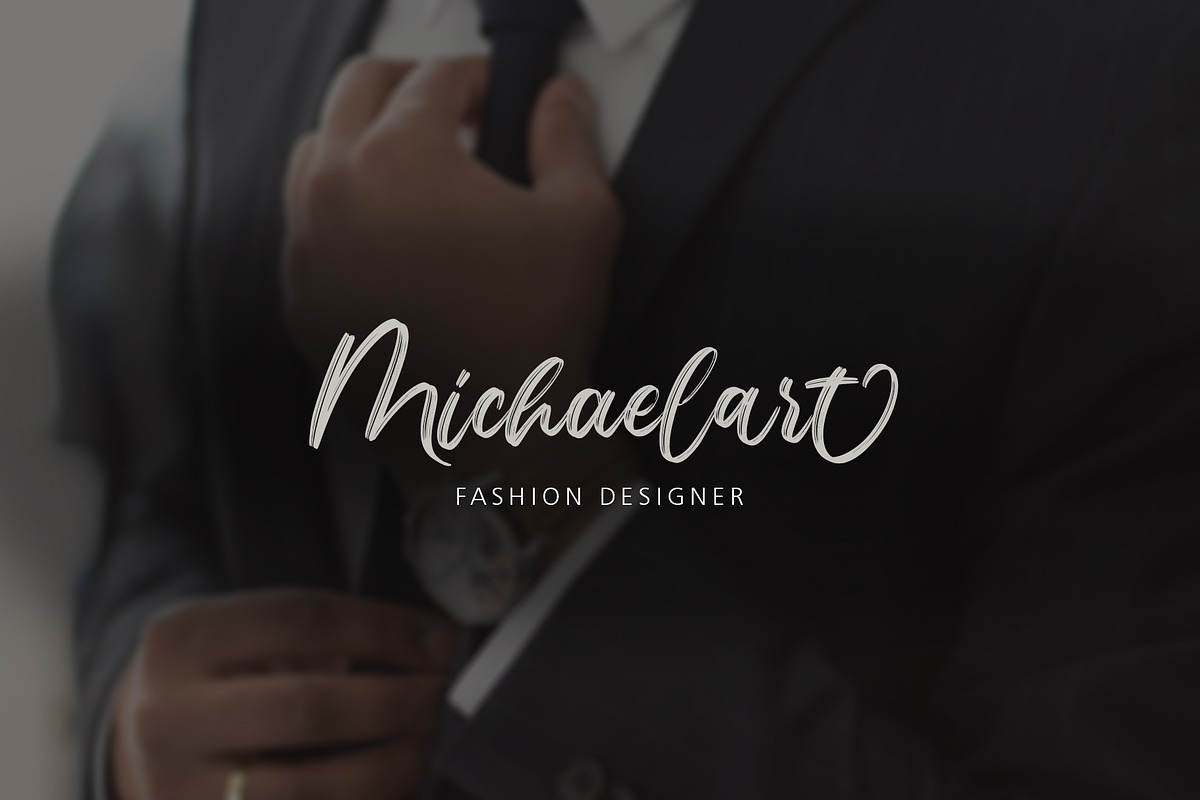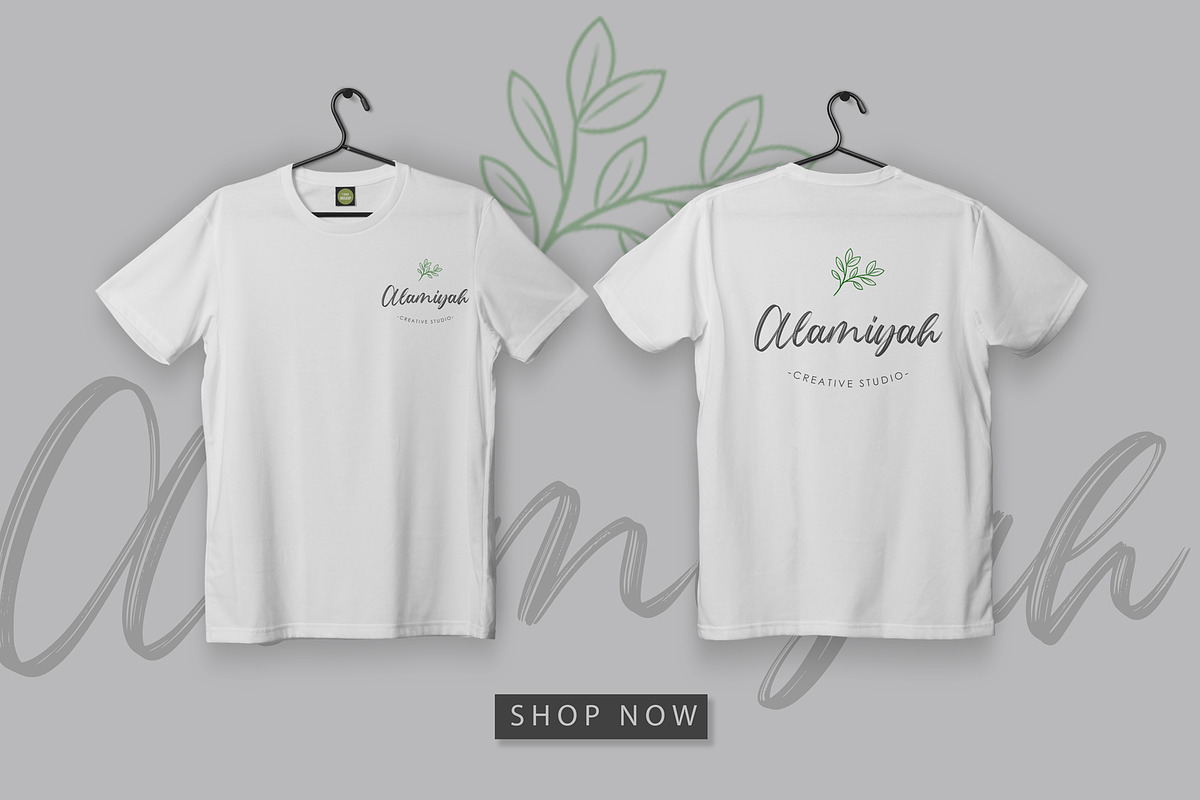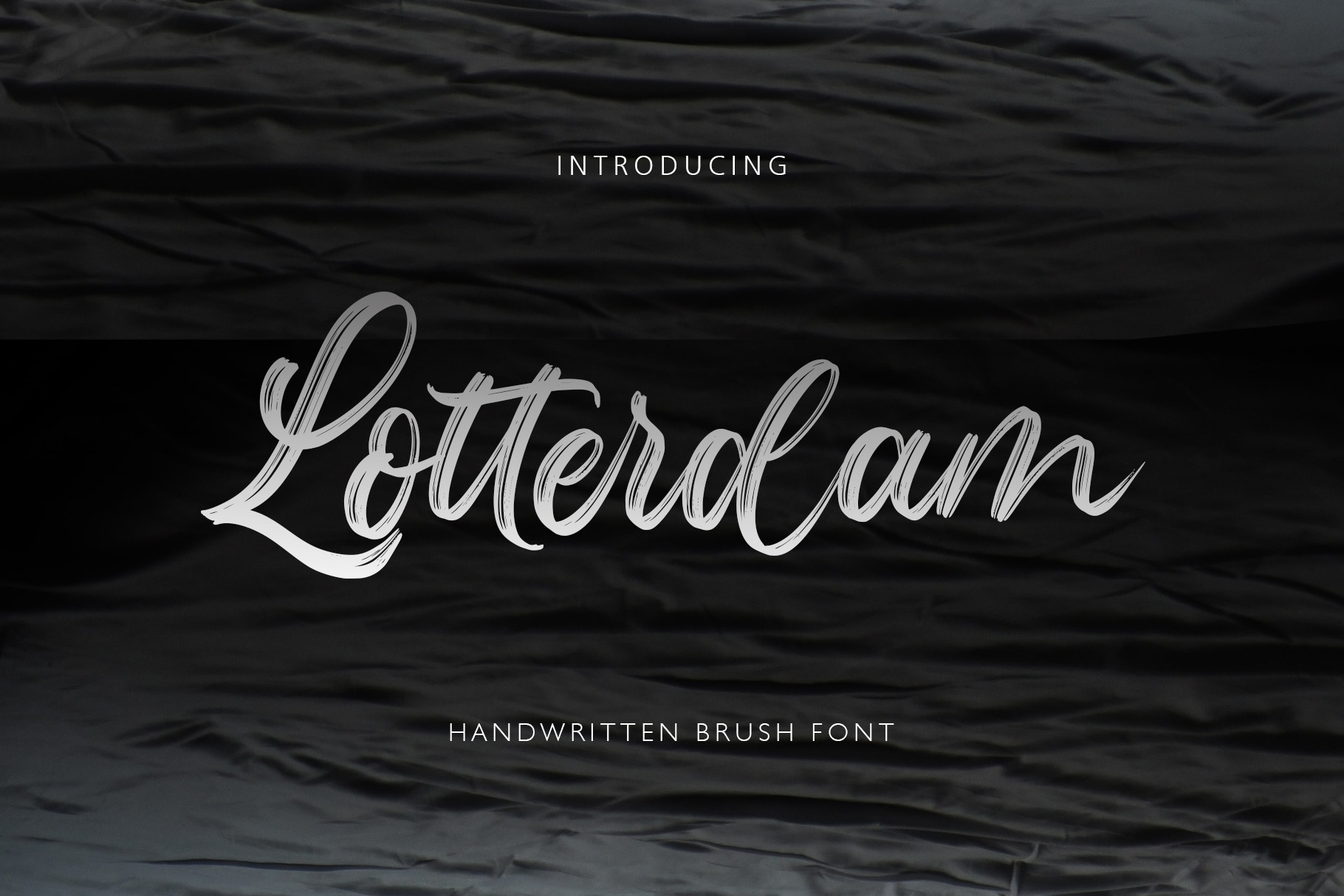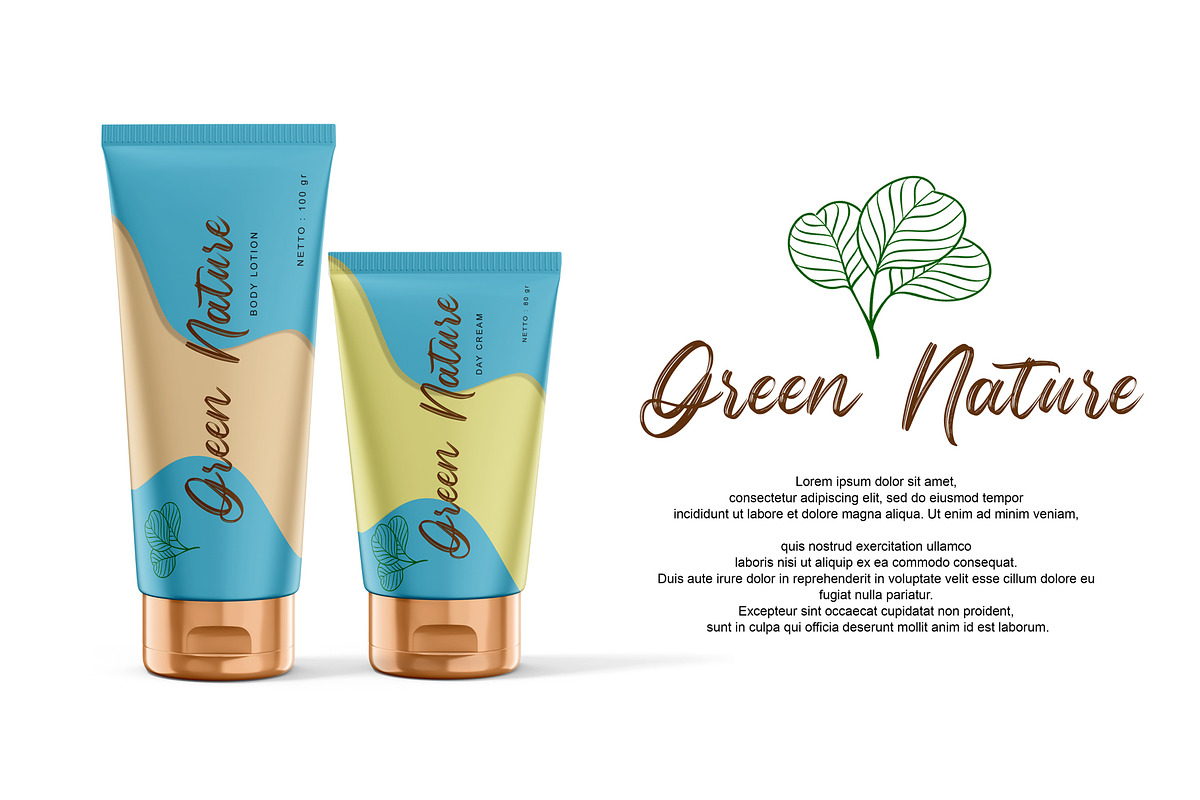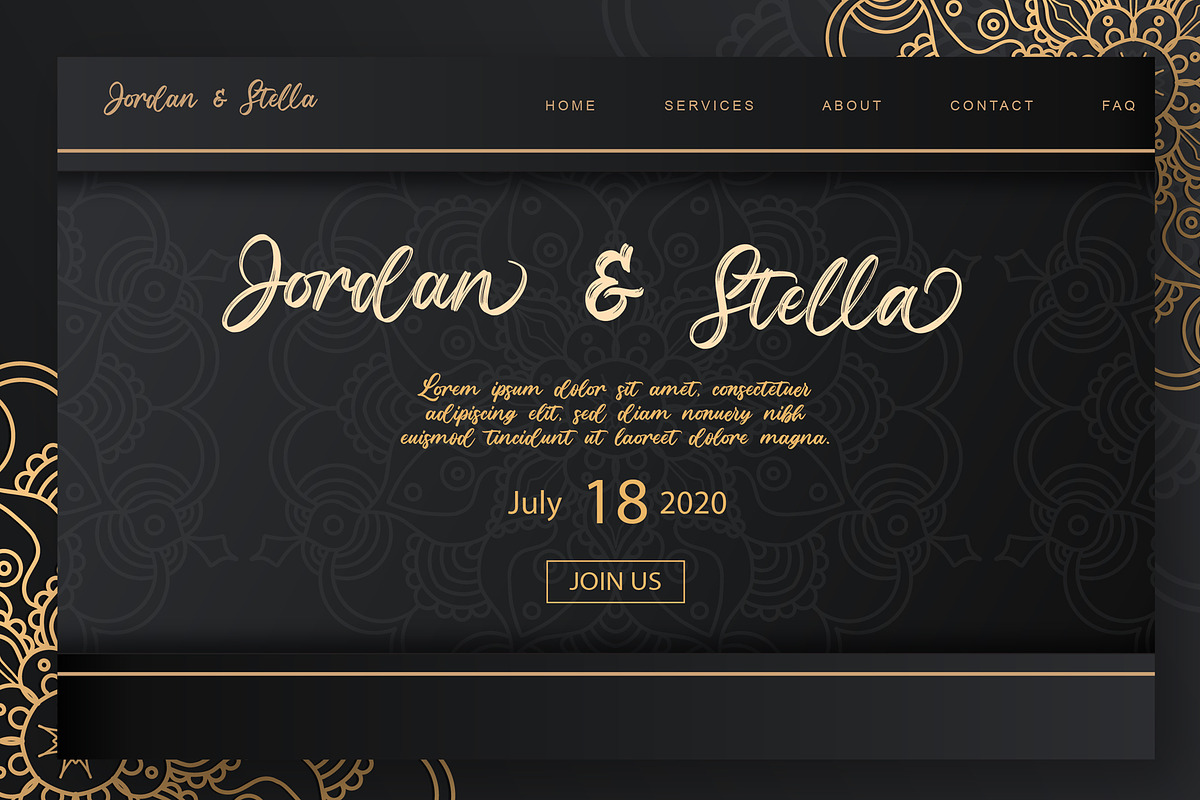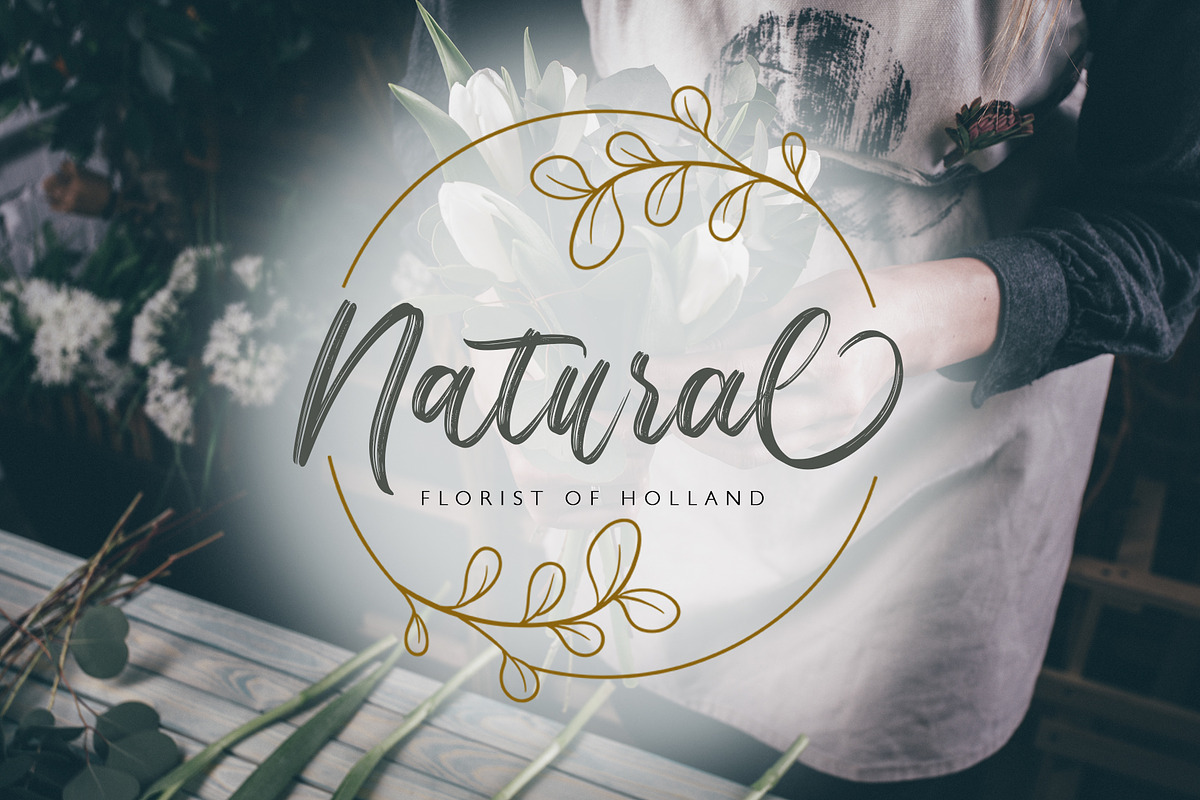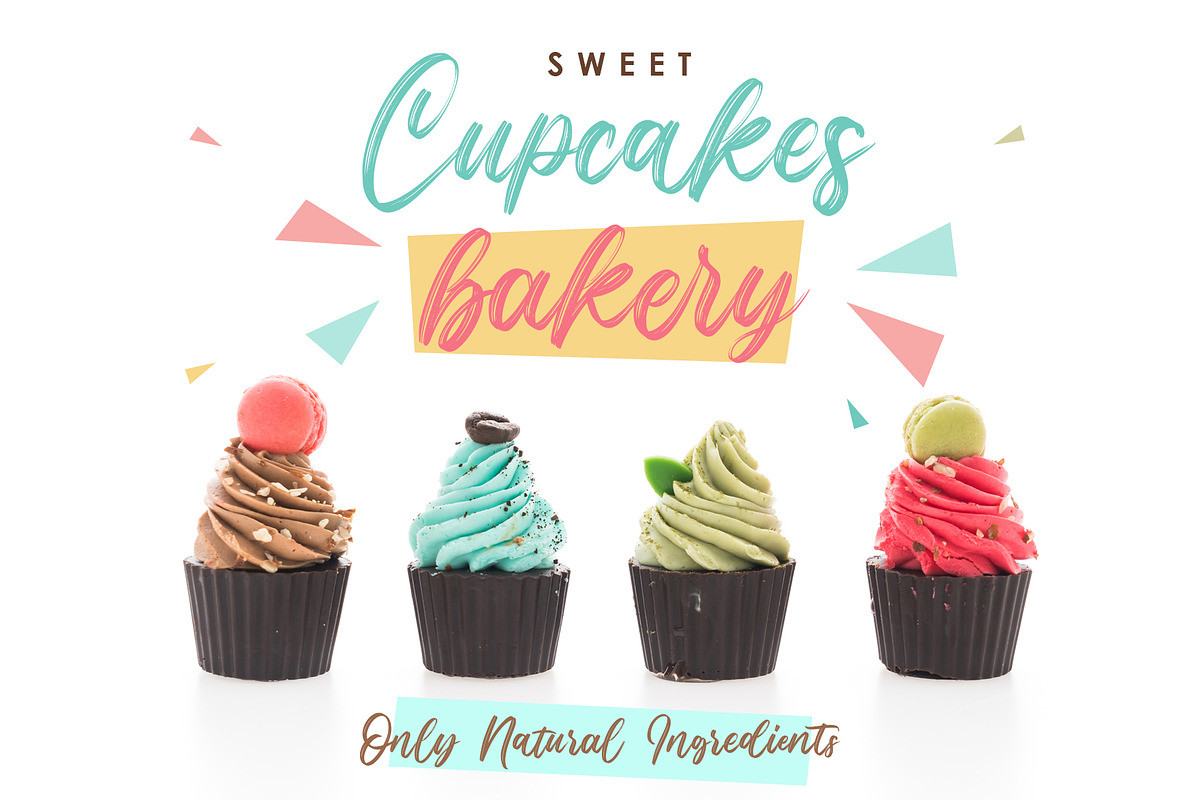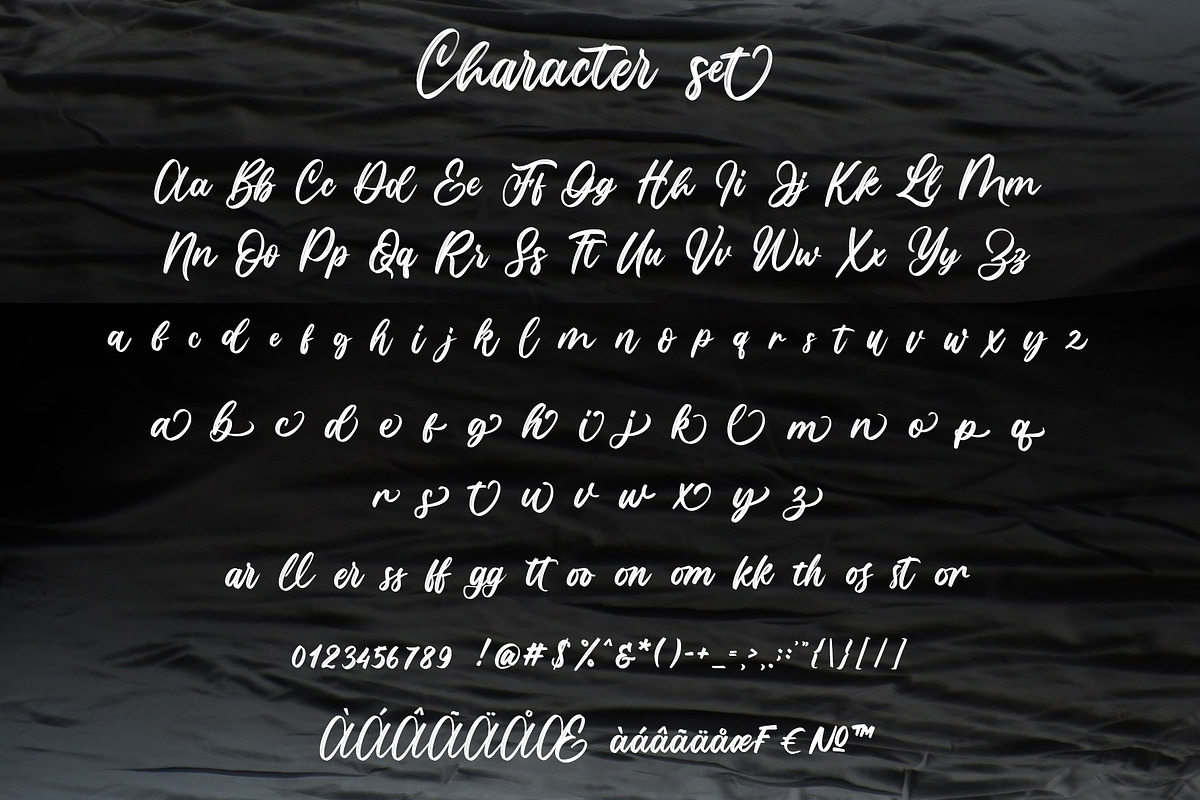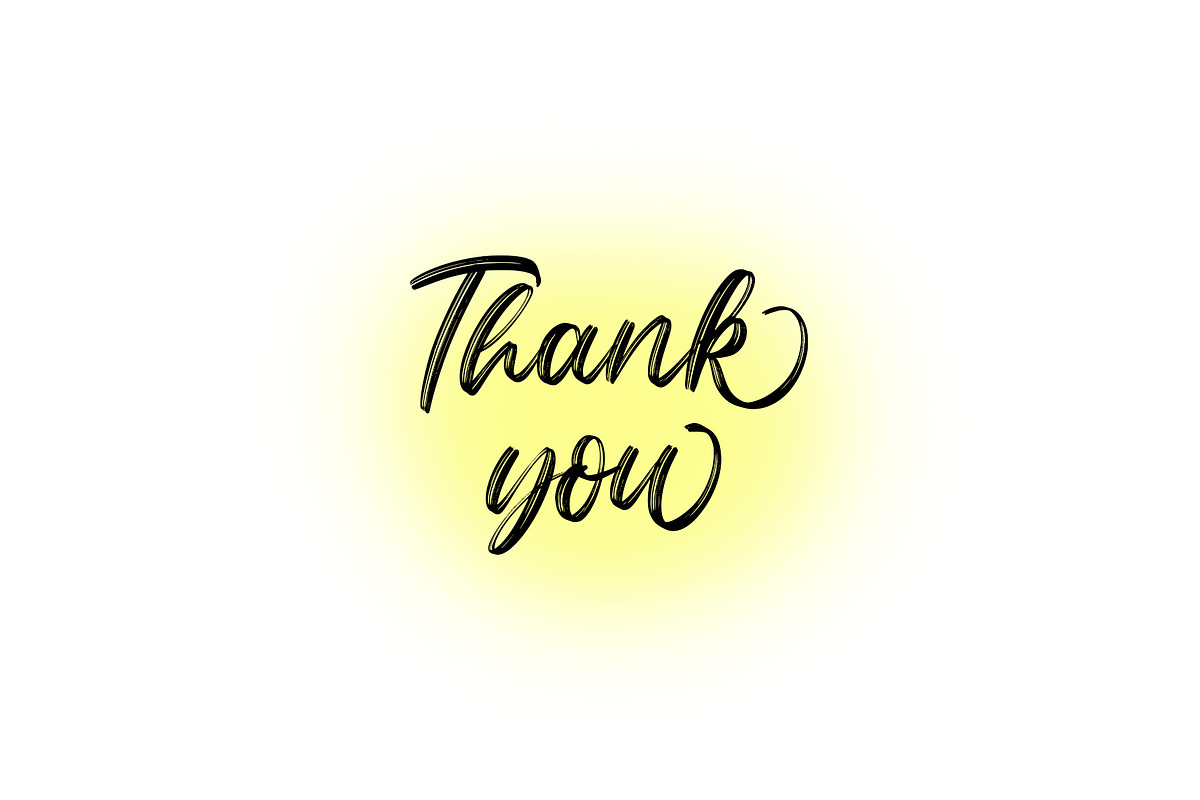
Lotterdam Brush Font
Lotterdam is a realistic hand brushed font, with natural authentic brush, and also provided some alternate, ligatures and Swashes. Brand new stylish textured fonts and Make it easy for made logotype Hand lettering Style. It will be great for Logotypes, Posters, Digital Lettering Arts, Clean Design, Branding Design, Sign, Merchandise and Social Media Posts.
This font contain of Uppercase, Lowercase, Number, Symbol, Punctuation, also support multilingual and already PUA encoded.